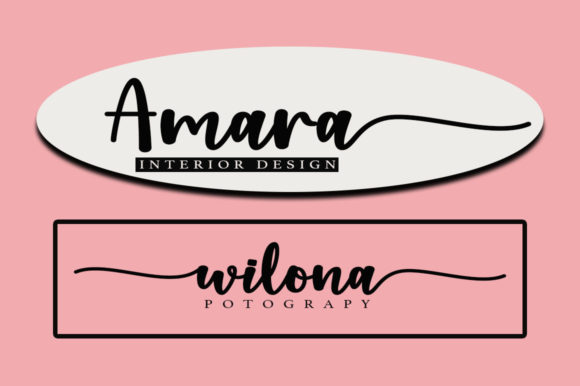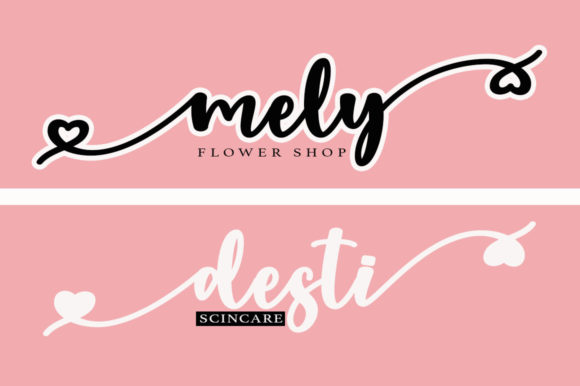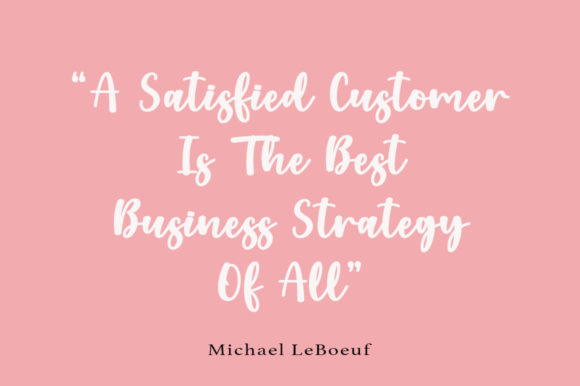
Introduction to Moly Font
Have you ever stared at a blank page, waiting for inspiration to strike, only to have a single word or phrase suddenly leap out at you? That’s exactly what happened to me the day I discovered the Moly Font. Its elegant, handwritten feel instantly captured my imagination, and I knew I had to learn more.
As a designer, I’m always on the lookout for high-quality fonts that can add a unique touch to my creative projects. And let me tell you, Moly Font delivers. With its beautiful, flowing lines and versatile style, this font is perfect for everything from wedding invitations to business cards. Plus, with its transparent background and free download, it’s a design resource that’s as accessible as it is beautiful.
Whether you’re working on a personal project or a commercial design, Moly Font is an invaluable addition to your toolkit. In this article, we’ll take a closer look at what makes this font so special and how you can incorporate it into your next creative project.
Key Features of Moly Font
- High-quality, professional font suitable for creative projects, with a transparent background that allows for versatile design possibilities.
- Comes in a range of sizes, from 12pt to 72pt, making it ideal for a variety of design applications.
- Designed with a focus on clarity and readability, making it perfect for use in digital and print media.
- Features a clean, modern design that is perfect for use in creative projects, such as logos, typography, and graphic design.
- Includes a high-resolution design, suitable for use at 300 DPI, ensuring crisp and clear text output.
Honest Review: Moly Font
I recently stumbled upon the Moly Font, a free download that caught my attention with its unique design and versatility. As a designer, I appreciate high-quality fonts that can elevate a creative project to the next level.
- ✨ Unique and modern design aesthetic
- ✨ Highly customizable with various font weights and styles
- ✨ Transparent background, allowing for seamless integration into designs
- ⚠️ Limited character set, which may not be suitable for complex or lengthy text
- ⚠️ Not as widely supported as some other popular fonts, which may cause compatibility issues
Overall, the Moly Font is a solid addition to any designer’s toolkit. While it may have some limitations, its unique design and versatility make it a great resource for creative projects. I appreciate the transparency of the font and its free availability, making it a valuable design resource for designers on a budget.
Tips for Getting the Most Out of Moly Font
For optimal results, use Moly Font on a transparent background to create a clean and elegant design. Experiment with different font sizes and colors to enhance the visual appeal of your creative project.
Common Use Cases for Moly Font
Moly Font is ideal for a variety of design projects, including logos, branding materials, and digital graphics. Its high quality